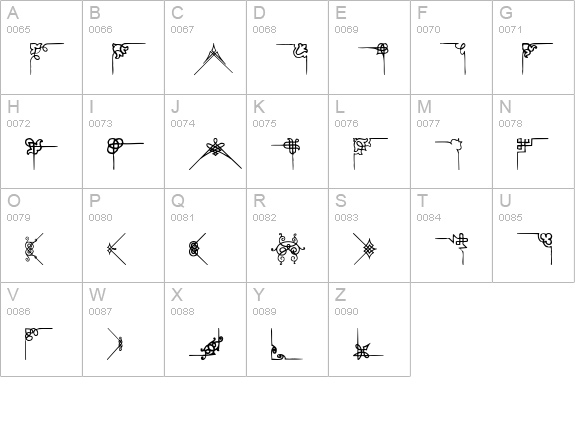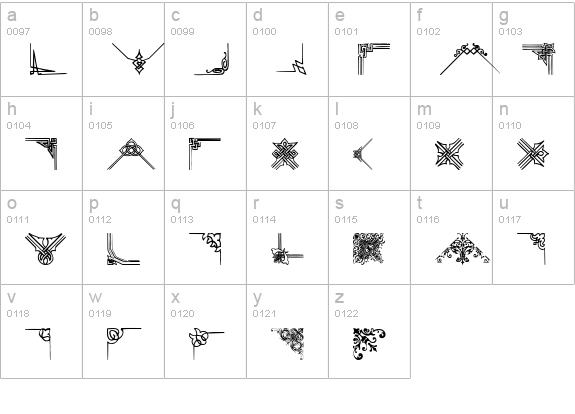
FloridVictorianOrnament Font Details
FloridVictorianOrnament font is a stunning display typeface that exudes elegance and sophistication. With intricate details and elaborate embellishments inspired by Victorian design, this font is perfect for adding a touch of opulence to your projects. Its ornate flourishes and delicate curves make it a standout choice for invitations, posters, and branding materials. The best part? FloridVictorianOrnament font is available for free download at FontsMarket.com. Whether you're a designer looking to elevate your creations or a hobbyist seeking a touch of vintage charm, this font is sure to impress. Embrace the beauty of the Victorian era with FloridVictorianOrnament font - download it today and let your creativity flourish.